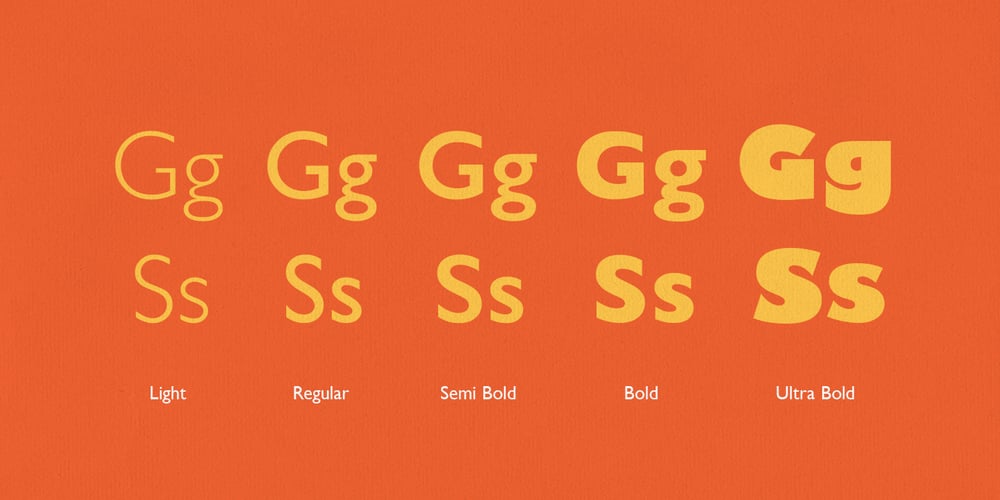
Gill Sans MT
Gill Sans MT font
Gill Sans MT Font Family was designed by Eric Gill and published by Monotype. Gill Sans MT contains 21 styles and family package options. Gill Sans is a humanistic sans serif family that, while is considered by many to be quintessentially British in tone and concept, has been used in virtually every country and in nearly every application imaginable. Gill Sans has reached this level of near-ubiquity for one simple—and very good—reason: it is an exceptionally distinctive design with a potential range of use that is almost limitless. This toolkit family includes a wide range of styles including the standards such as Light—which is open and elegant—and a Regular that, with its flat-bottomed d, flat-topped p and q and triangular-topped t, has a more compact and muscular appearance. Its Bold styles tend to echo the softer, more open style of the light while the extra bold and ultra bold have their own vivid personalities, but each of them would make for an eye-catching headline. Take into account the family’s many weights, including condensed and extra condensed designs, and extended language support and you have yourself a tool you’ll be thrilled to return to, time and again. Gill Sans was designed by Eric Gill: a versatile, brilliant, and prolifically successful designer of the early part of the last century. One of the main reasons for the enduring success of his namesake design is that it is based on Roman character shapes and proportions, making it unlike virtually any other sans serif out there. Gill also worked his own warmth and humanity into his design, resulting in a typeface in which each weight retains a distinct personality of its own. Pair with serif fonts like Gill’s own Joanna; or more modern offerings like Frutiger® Serif, Malabar™, Syntax® Serif, FF Scala®, or DIN Next™ Slab.